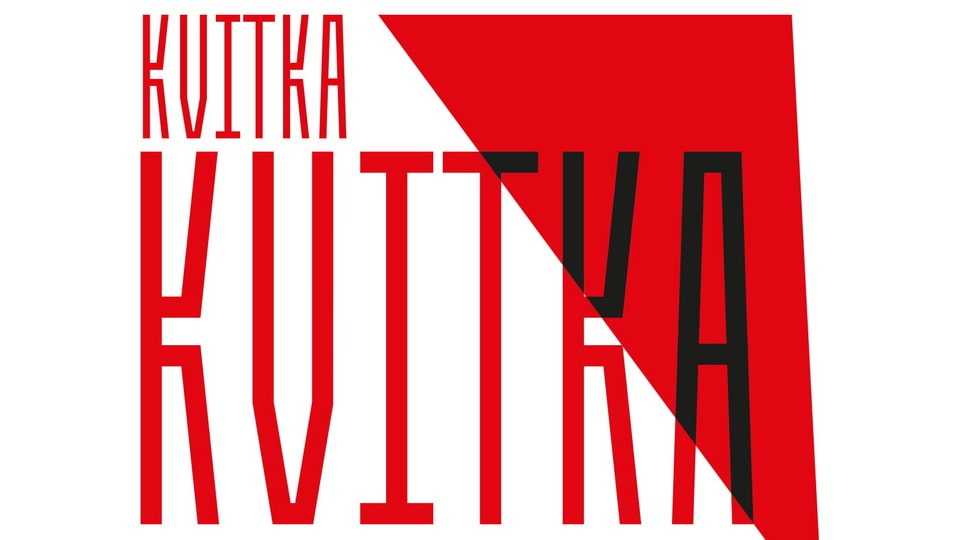
Download Kvitka font, a tall and elegant display typeface inspired by the striking lettering found on a book cover featuring the works of Franz Kafka.
Designer: Sasha Pavljenko